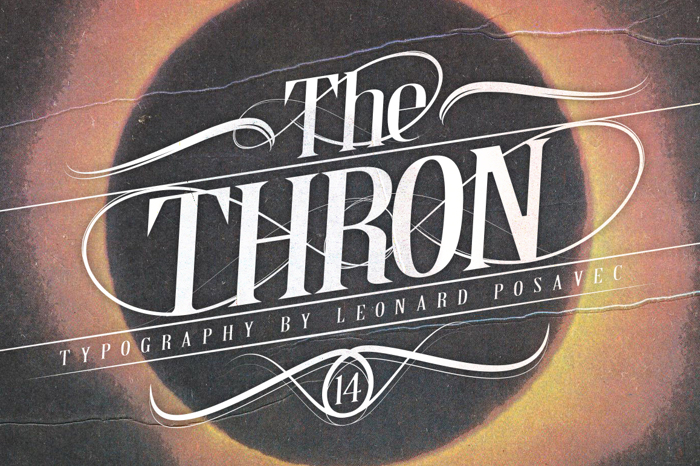
Thron Demo Font
Thron Demo Font is a Victorian font and was created on . Since then, it has been downloaded 12,958 times and added to 193 collections. 3 people have liked Thron Demo Font and given it a thumbs up.
This is handmade Font, Calligraphy style, Suitable for design, element design, wedding, event, t-shirt, logo, badges, sticker, and awesome work about summer.